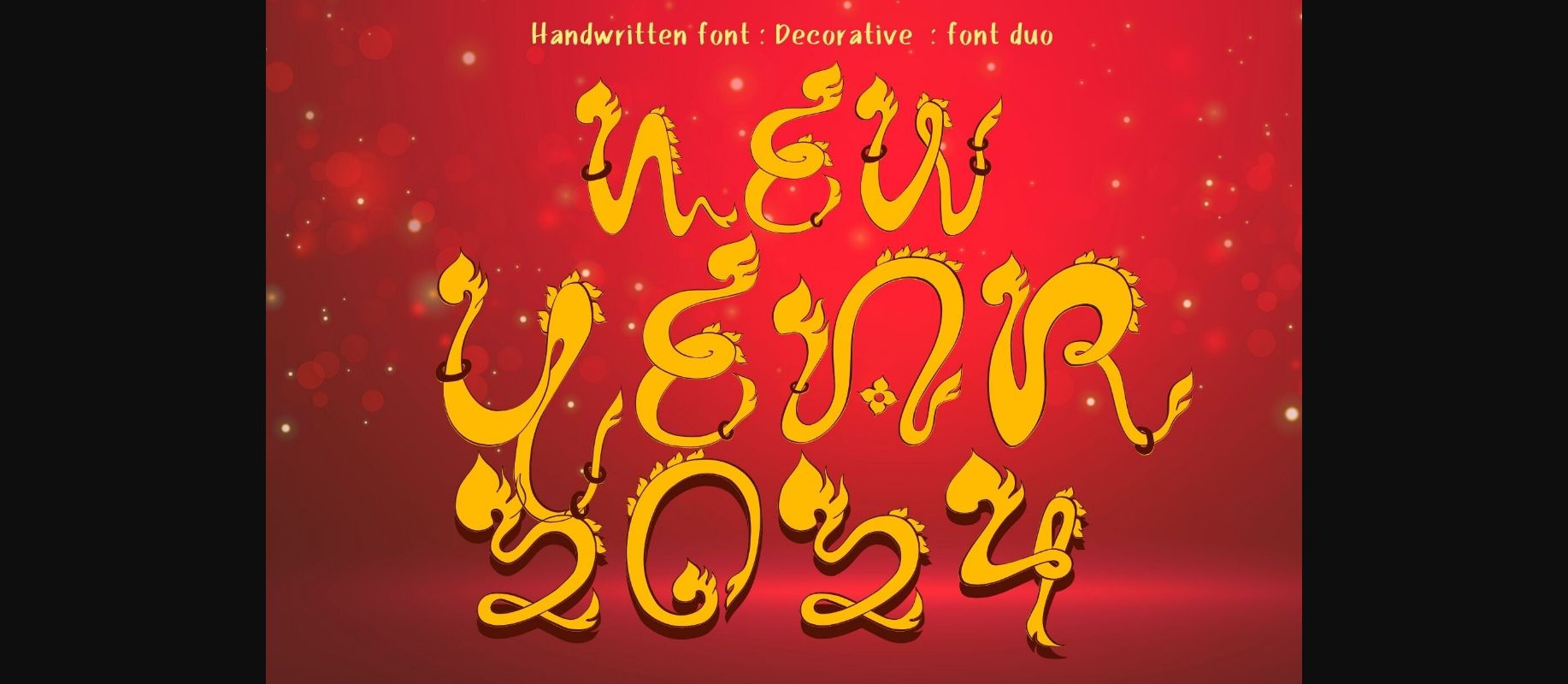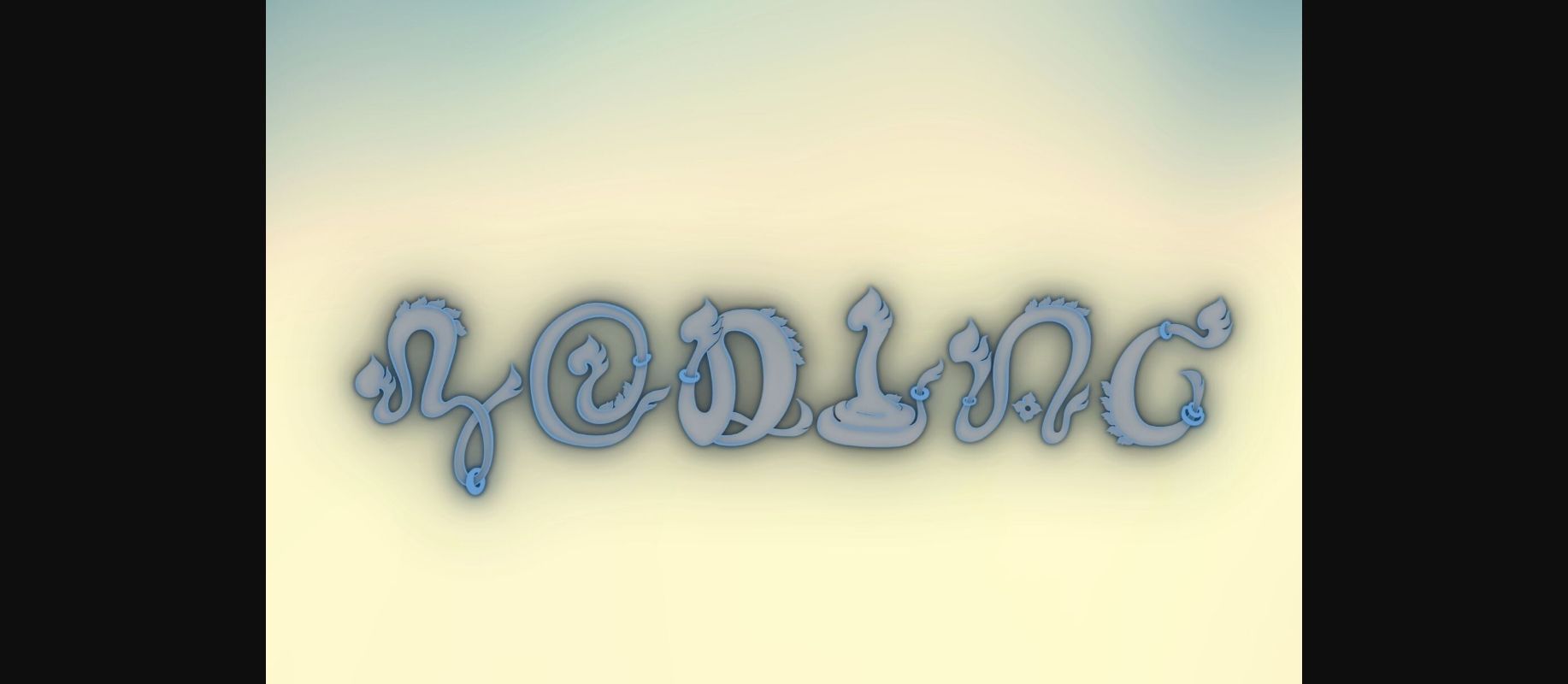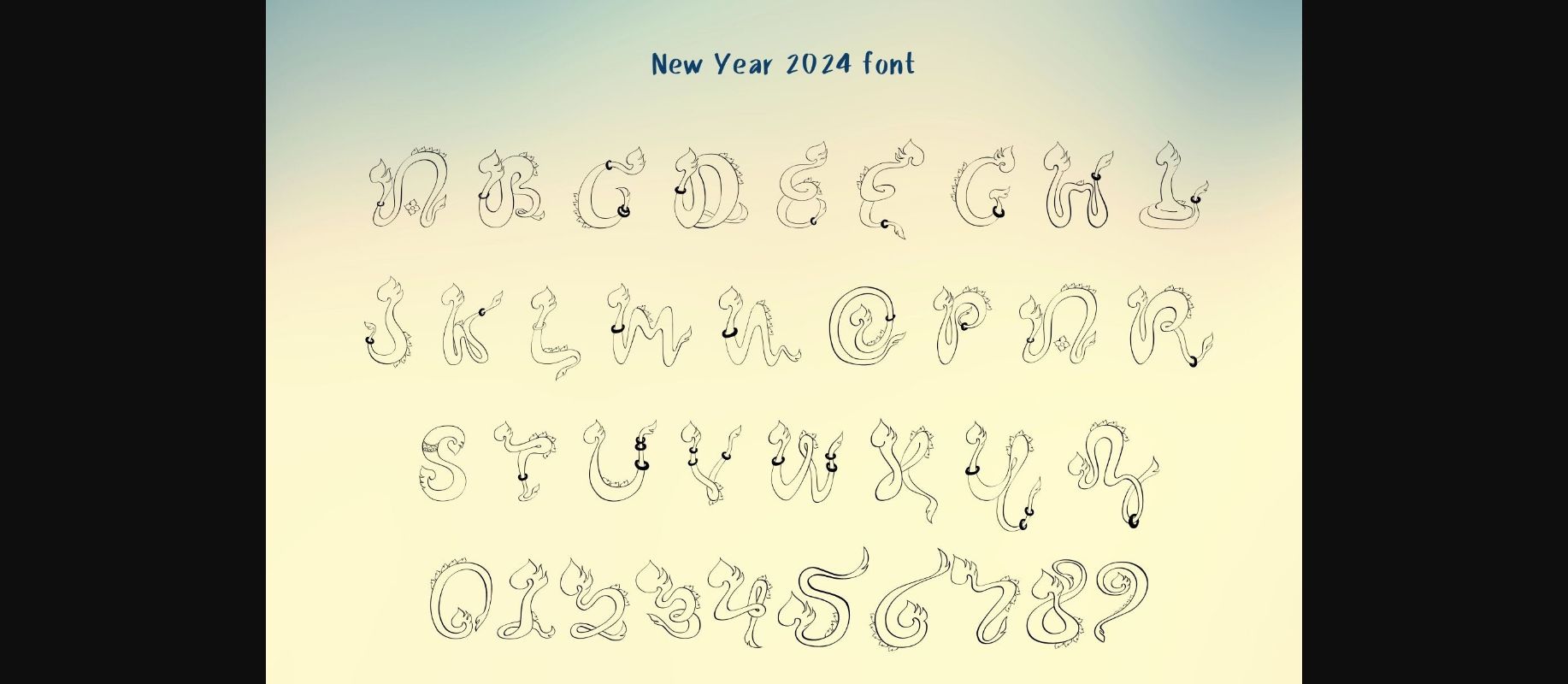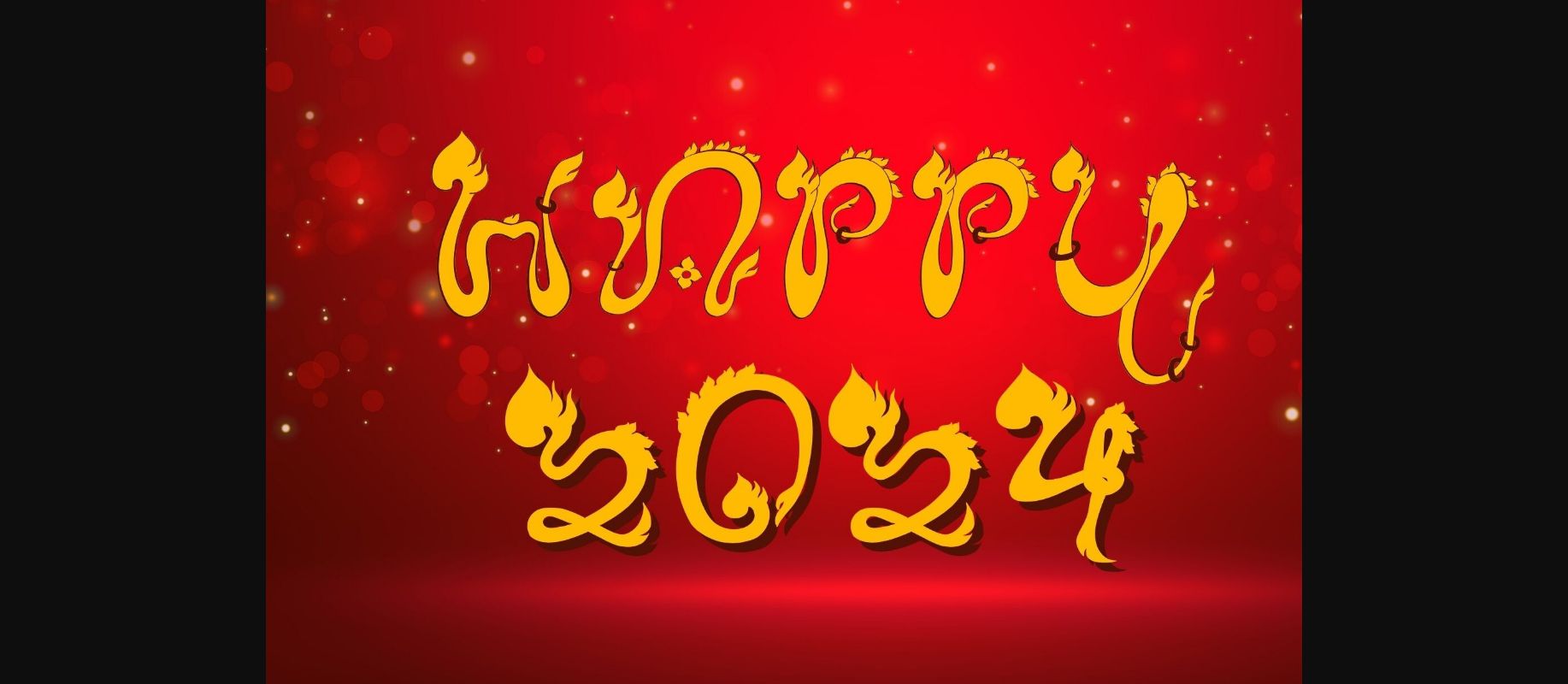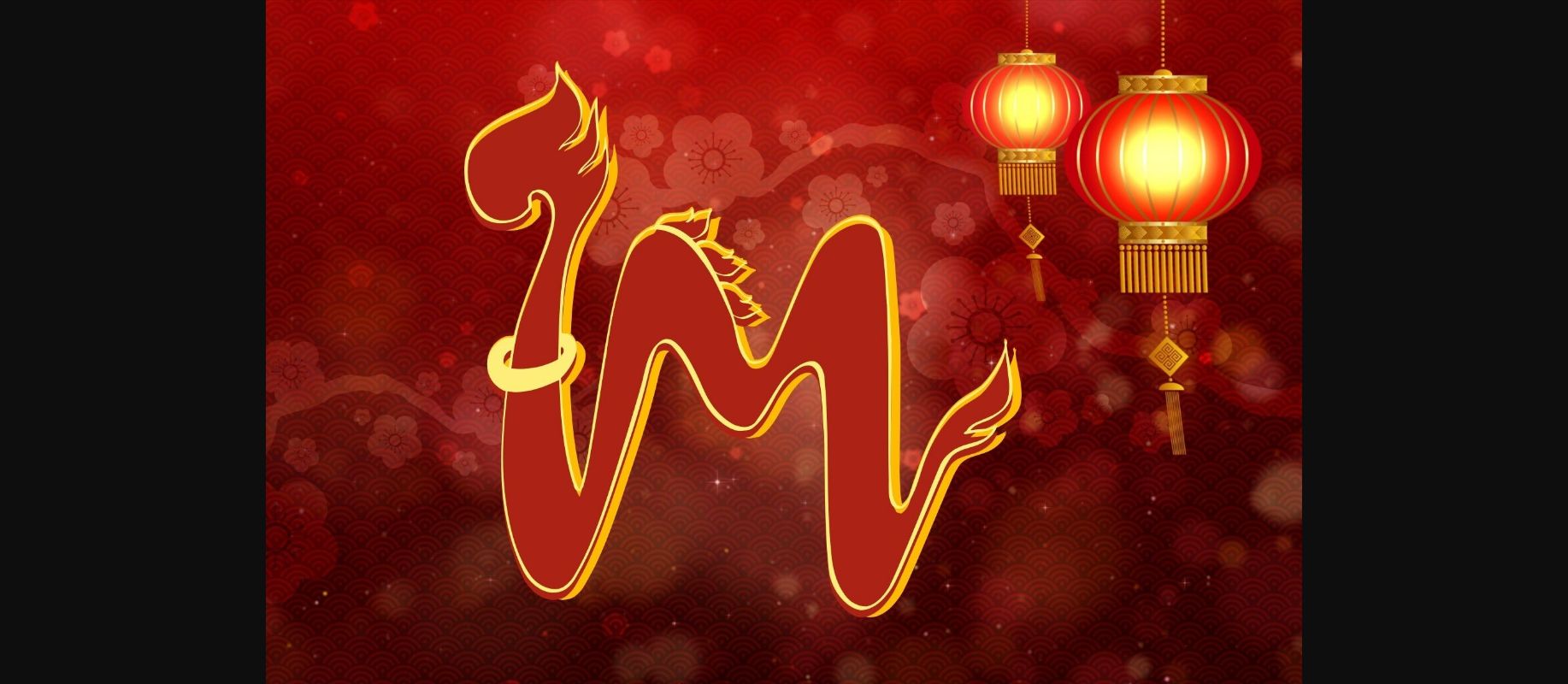
About New Year 2024 Font
New Year 2024 and Serpent are handwritten font: logos, branding, wedding invitations, business cards, greeting cards, posters, magazines, social media, planner prints, and websites. It is especially useful for children’s designs, t-shirts, mugs, posters, and more. Add this font to your favorite creative ideas and notice how it makes them come alive.